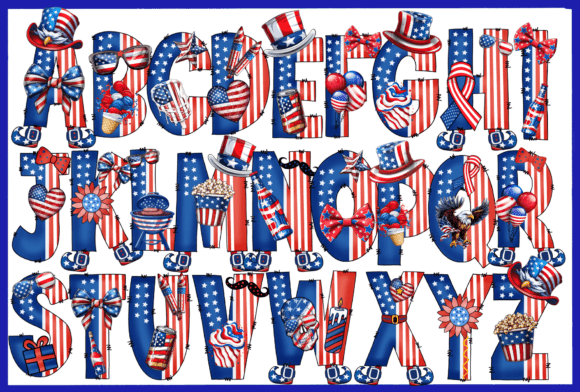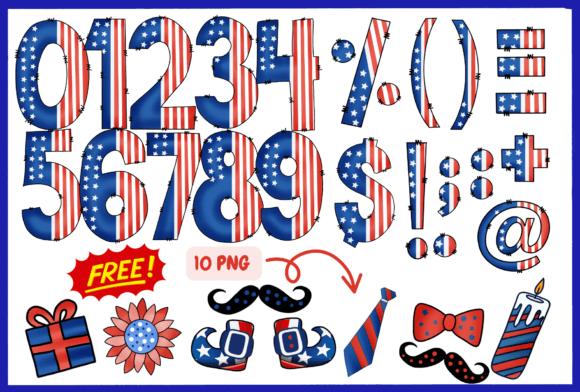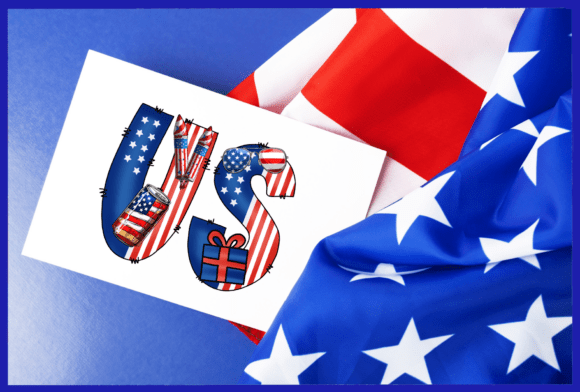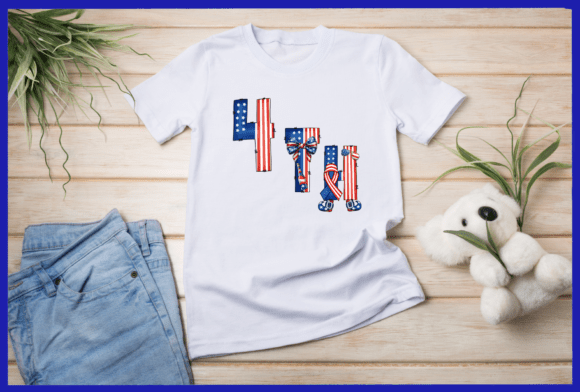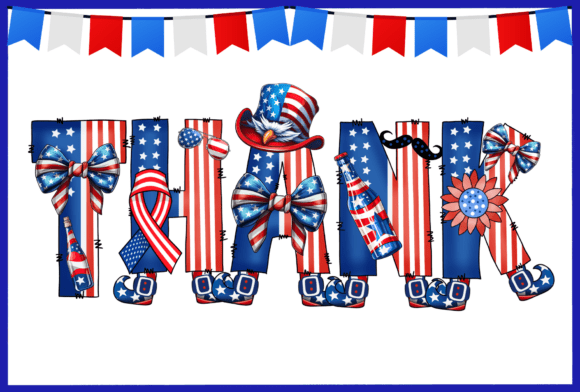
Red, White, and Blue in a Whole New Way
As a designer, there’s nothing quite like the thrill of creating something that captures the essence of a special moment. Whether it’s a birthday party or a national holiday, the right font can make all the difference. And for Independence Day celebrations, I’m excited to share a font that’s sure to add a burst of patriotic spirit to your designs: the Independence Day Font.
This delightful font is more than just a way to express your love of America – it’s a way to add a playful touch to your projects. With its vibrant red, white, and blue color scheme, stars, stripes, and festive embellishments, the Independence Day Font is perfect for kids’ crafts, party invitations, T-shirt designs, and event posters. Available in multiple formats, this font is a valuable tool for designers looking to add instant joy and Americana flair to their celebratory designs.
Key Features of Independence Day Font
- Font Family: A custom-designed font family with a bold, patriotic feel, perfect for Independence Day celebrations.
- Font Size: The font family includes a range of weights and styles, from light to bold, with font sizes ranging from 8pt to 72pt.
- Resolution: The font is designed to be legible at high resolutions, making it suitable for use in large-format printing, signage, and digital displays.
- Unique Characteristics: The font features a distinctive, hand-drawn style with intricate details and flourishes, giving it a unique and eye-catching look.
- Character Set: The font includes a comprehensive character set, including Latin, Cyrillic, and Greek alphabets, as well as punctuation and special characters.
Independence Day Font Review
At first glance, the Independence Day Font seems like a fitting choice for patriotic-themed designs. ✨ The font’s bold, striking lines and classic feel evoke a sense of nostalgia and American pride. The font’s versatility also makes it suitable for a variety of design projects, from posters to t-shirts.
One of the strengths of this font is its legibility, making it easy to read even in smaller sizes. ✨ Additionally, the font’s bold weight allows it to stand out on crowded designs, drawing attention to key messages or headlines.
- ⚠️ Limited character set: The font only includes uppercase letters, making it less suitable for designs that require lower-case text.
- ⚠️ Limited language support: The font is primarily designed for English, which may limit its use in multilingual designs.
- ⚠️ Limited customization options: The font is a pre-designed asset, offering limited flexibility for designers who want to create custom variations.
Overall, the Independence Day Font is a solid choice for patriotic-themed designs, but its limitations may restrict its use in more complex or nuanced projects.